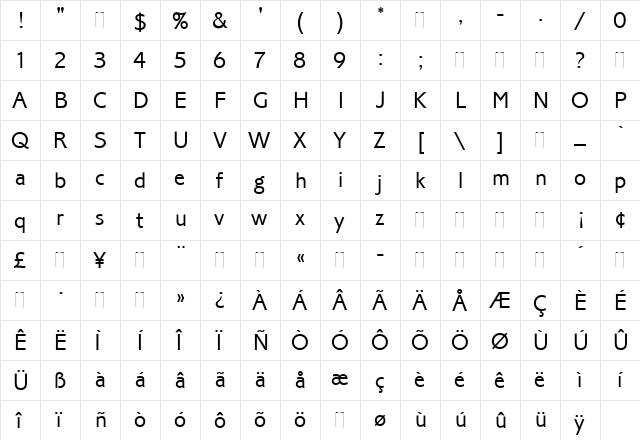
Corinthian Light Regular
Design Context for Corinthian Light Typeface
Corinthian Light offers clean, dependable letterforms without strong stylistic allegiance, making it a practical choice for designers who need flexibility. Its slender proportions lend an understated elegance to any composition.
Pro Tip: Use Corinthian Light in both headline and body roles to test its range before committing to a single application.